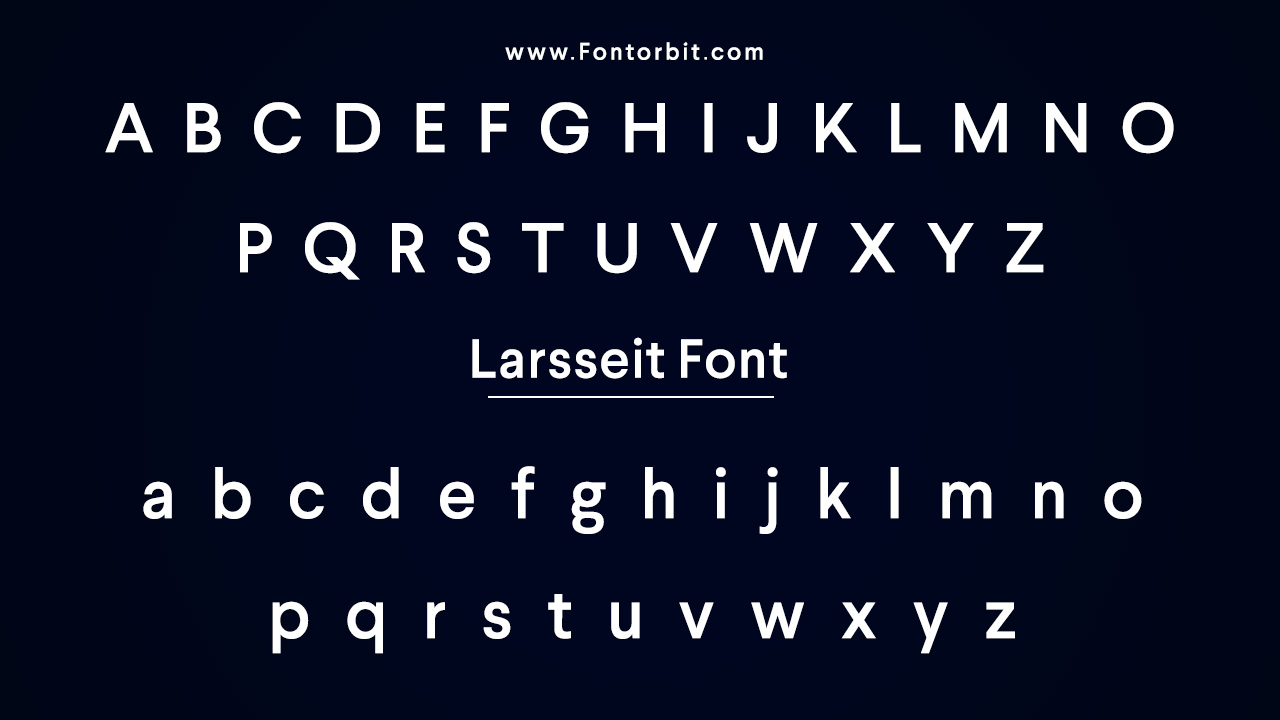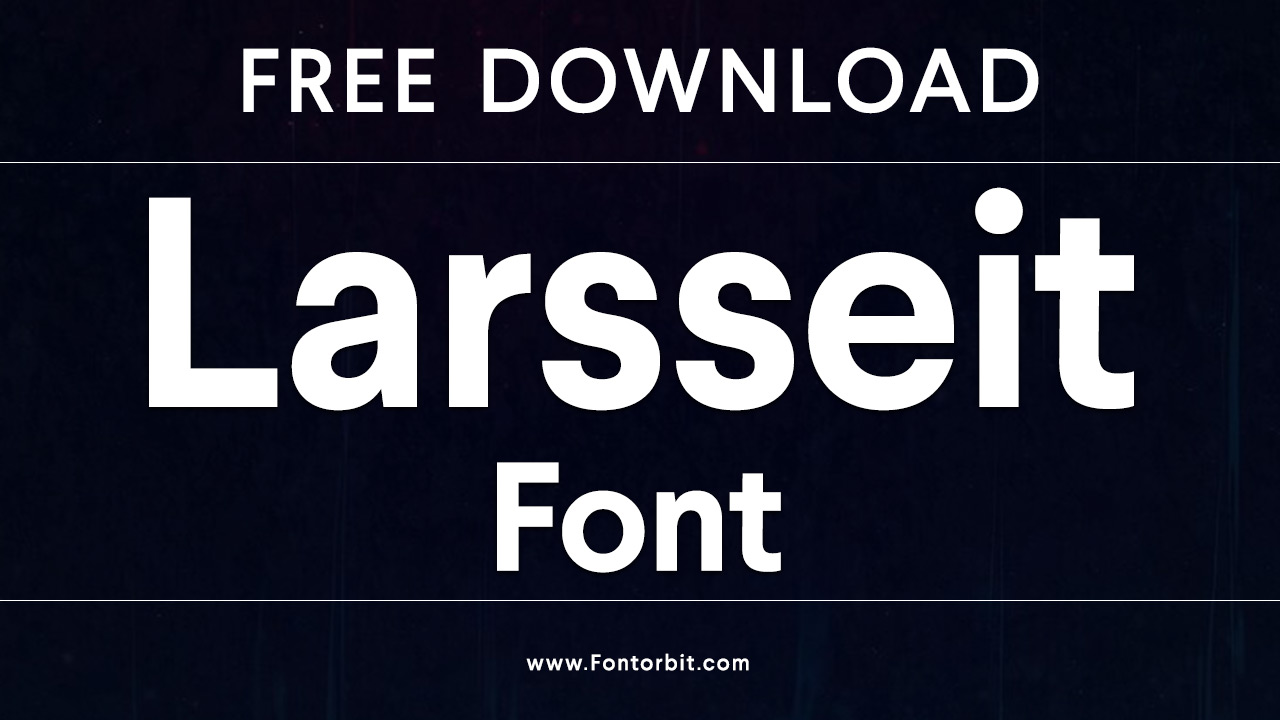
Larsseit is a modern sans-serif font designed by Nico Inosanto and published by Type Dynamic. First introduced with a focus on clean, readable, and objective design, Larsseit offers a range of styles, making it versatile for various design needs. The font family was released with a full package of 12 styles, making it a comprehensive choice for both text and display uses.
Larsseit Font Family Includes
The Larsseit font family mixes classic proportions with low contrast for a clean and legible look. The family includes the following 11 styles:
- Larsseit Regular
- Larsseit Thin
- Larsseit Thin Italic
- Larsseit Light Italic
- Larsseit Light
- Larsseit Medium
- Larsseit Medium Italic
- Larsseit Bold
- Larsseit Bold Italic
- Larsseit ExtraBold
- Larsseit ExtraBold Italic
Notable Uses Of Larsseit
Larsseit’s clean, modern, and highly readable design suits it for various professional and creative applications. Its versatility and geometric simplicity allow it to perform well in the following contexts:
- Corporate Branding
- Editorial Design
- Advertising and MarketingSignage and Wayfinding
- Packaging
Larsseit is perfect for various projects, including:
- Corporate branding and logos
- Editorial layouts and magazine spreads
- Website headings and body text
- Advertising campaigns
- Posters and banners
- User interfaces and apps
Larsseit is a font that stands out for its clarity and clean design, making it ideal for professional and contemporary uses. Whether you’re working on a corporate identity, editorial project, or digital interface, this font will provide your work with a modern and sleek look.
1.What Kind Of Font Is Larsseit?
It is a sans-serif font with classic proportions and low contrast.
4.Is Larsseit Good For Web Design?
Yes, its readability and clean lines make it ideal for web design.
5.Does Larsseit Support Cyrillic Characters?
Yes, Larsseit supports both Latin and Cyrillic scripts.
6.What Opentype Features Does Larsseit Offer?
It includes ligatures, fractions, tabular figures, proportional figures, and more.
8.Can Larsseit Be Used For Logos?
Absolutely, Larsseit’s clean and geometric style is well-suited for logo design.